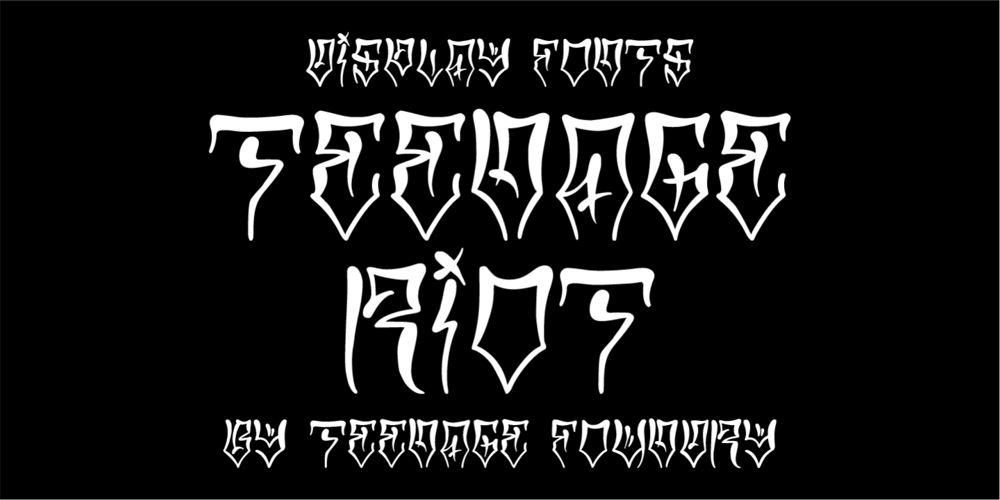
TF Teenage Riot Font Family was designed by Miftahul Habib and published by Teenage Foundry. TF Teenage Riot contains 2 styles and family package options. Teenage Riot is a Display Font.Inspired by the awesome Chicano lettering style. Look simpler with 2 styles (Regular & Outline) in today’s modern era. Suitable for poster designs, logos, merchandise and others.Features: Uppercase, Lowercase, Numeral, Punctuation & Multilingual.For any questions please contact me 🙂Thanks!